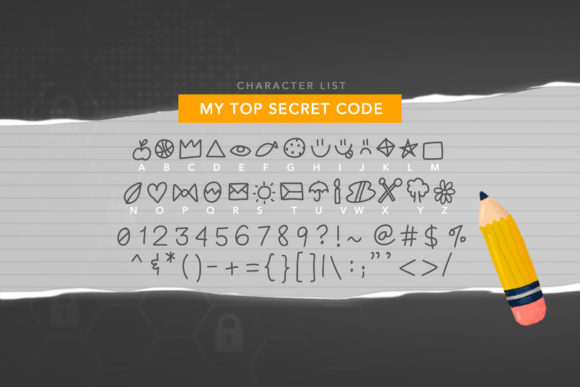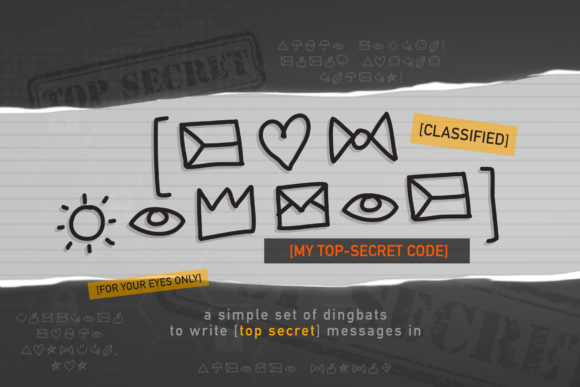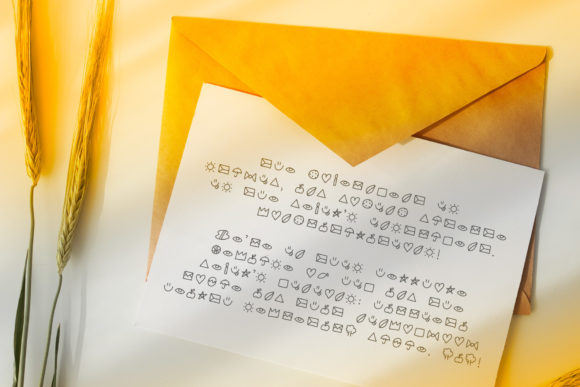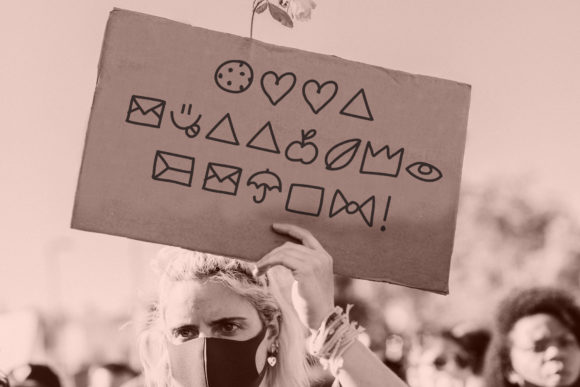
About My Top Secret Code Font
“My Top Secret Code” is a cute, cool, and quirky dingbats font that adds a unique touch to your designs. With its playful and mysterious symbols, this font is perfect for creating eye-catching and intriguing designs.
The characters in “My Top Secret Code” are designed to resemble secret codes, puzzles, and encryption. Each symbol represents a letter, number, or special character, allowing you to create messages and designs with a hidden or mysterious element. Whether you’re working on posters, invitations, social media graphics, or any other creative project, this font can add a touch of fun and intrigue.
By using “My Top Secret Code,” you can create designs that engage and captivate your audience. The font’s quirky symbols allow you to experiment with unique typography, making your text visually appealing and interesting to decipher. This can be particularly effective for projects that involve puzzles, mysteries, or secret-themed content.
Adding “My Top Secret Code” to your font library opens up a world of creative possibilities. You can use it to design personalized messages, create interactive activities, or simply add a playful element to your designs. The font’s versatility allows you to use it in various design contexts, including branding, marketing materials, greeting cards, and more.
To make the most of “My Top Secret Code,” consider the overall theme and message of your design. Experiment with different combinations of symbols to create visually engaging compositions. You can also mix this font with other fonts and graphic elements to create a unique and cohesive design.
One of the advantages of using dingbats fonts like “My Top Secret Code” is the ability to easily integrate them into your design workflow. As a font, you can type and manipulate the symbols just like regular text, allowing you to adjust the size, color, and other formatting options to suit your design needs.
In summary, “My Top Secret Code” is a cute, cool, and quirky dingbats font that adds a playful and mysterious touch to your designs. By incorporating its unique symbols into your projects, you can create outstanding and engaging designs that captivate your audience. So, add “My Top Secret Code” to your font library and unlock a world of creative possibilities!